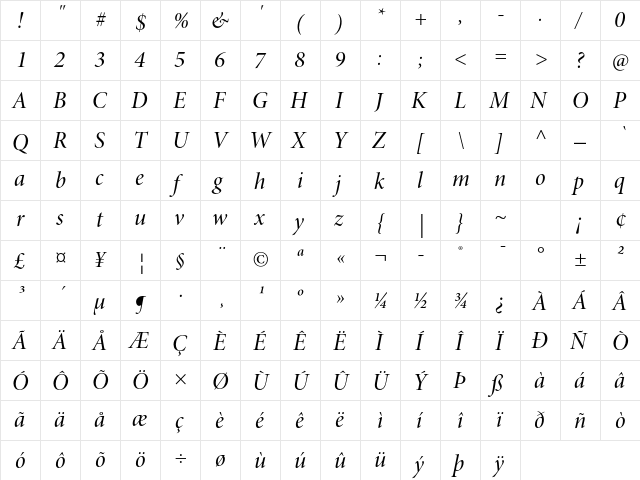
Minion Pro Medium Italic Display Font Preview
Minion Pro Medium Italic Display
Minion Pro Medium Italic Display Font Details
| Style | Medium Italic Display |
| Designer | Robert Slimbach |
Design Context for Minion Pro Typeface
Minion Pro is built around its visual character rather than neutral utility — its distinctive forms are designed to make an impression at display sizes. The slanted form adds forward momentum and visual energy.
Font Pairing: Pair with a clean neutral sans-serif for body copy to let Minion Pro's character lead without overwhelming the composition.
Pro Tip: Use Minion Pro exclusively at display sizes — it was designed to be seen, not read at length. Let a neutral companion handle body copy.